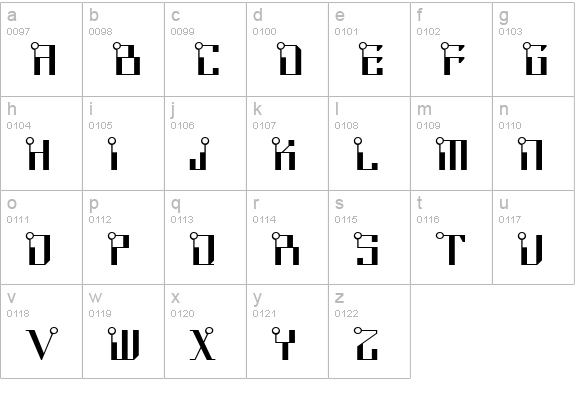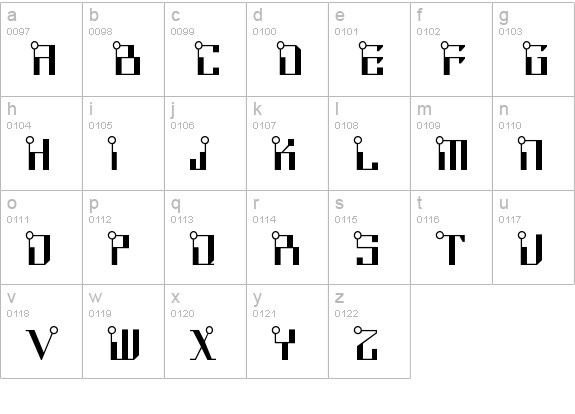
CircuitBoredNF font is a futuristic and edgy typeface that perfectly captures the essence of modern technology and digital innovation. With its sharp lines and sleek design, this font exudes a sense of energy and sophistication. The unique combination of geometric shapes and circuit board-inspired details makes CircuitBoredNF font stand out from the crowd. What's even better is that CircuitBoredNF font is available for free download at FontsMarket.com. This means you can easily access this cutting-edge font and use it in your projects without any cost. Whether you're designing a tech-related website, creating digital art, or crafting a logo for a high-tech company, CircuitBoredNF font is sure to make a bold statement. Embrace the future with CircuitBoredNF font and elevate your designs to the next level.